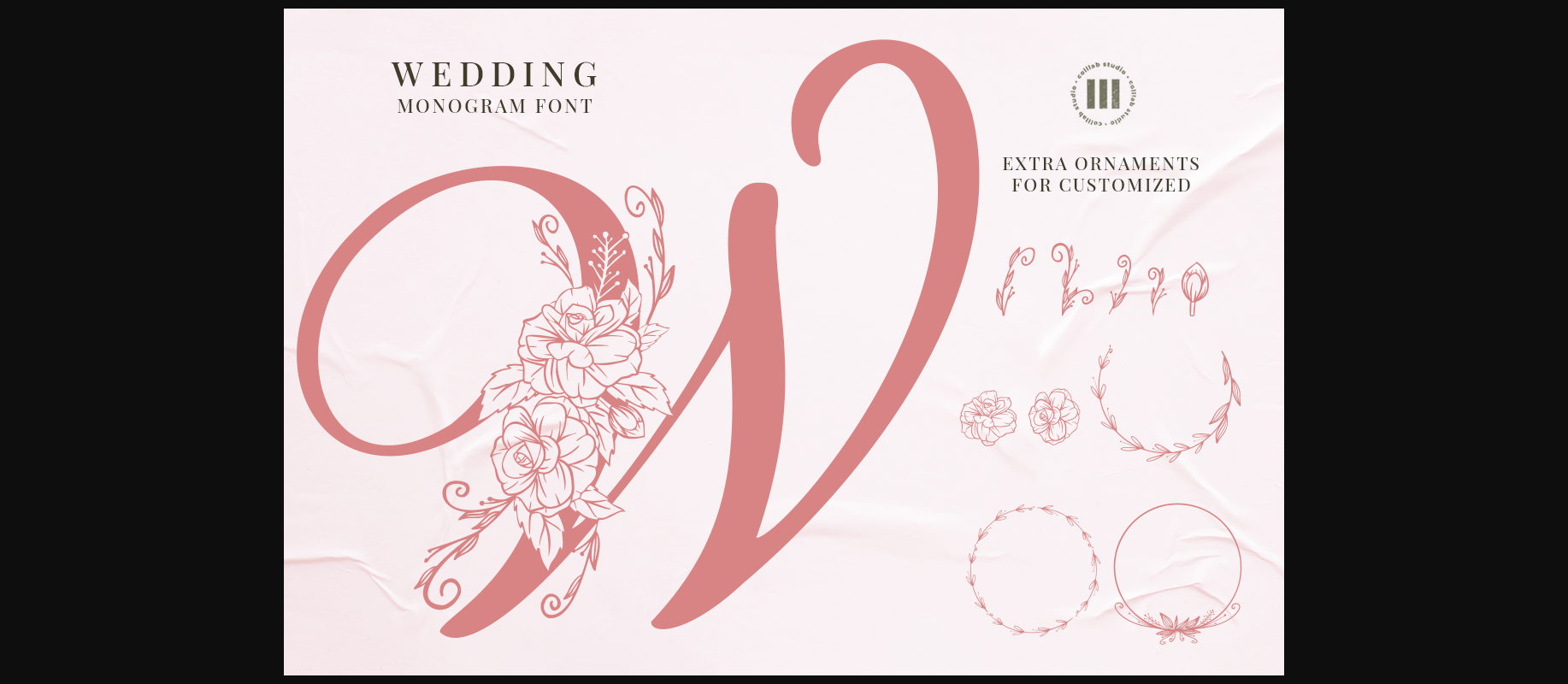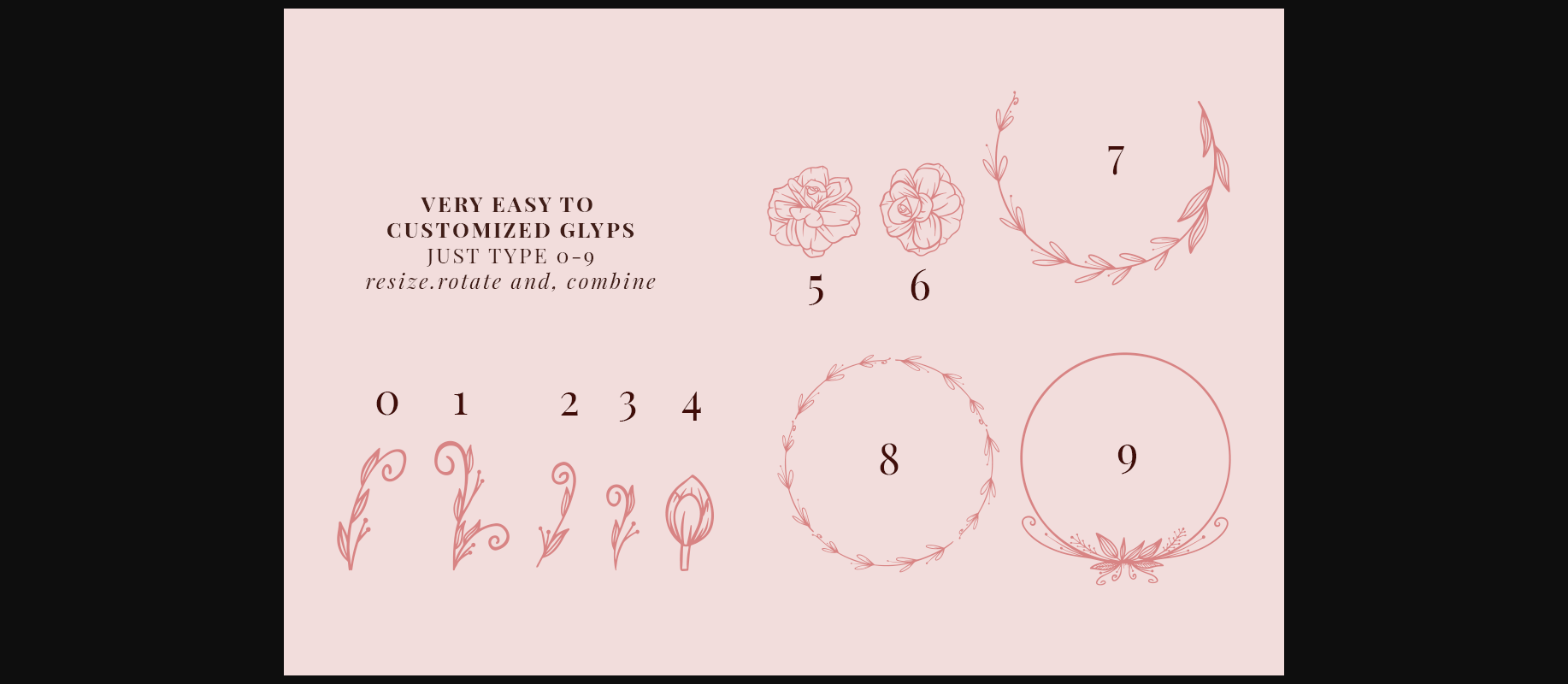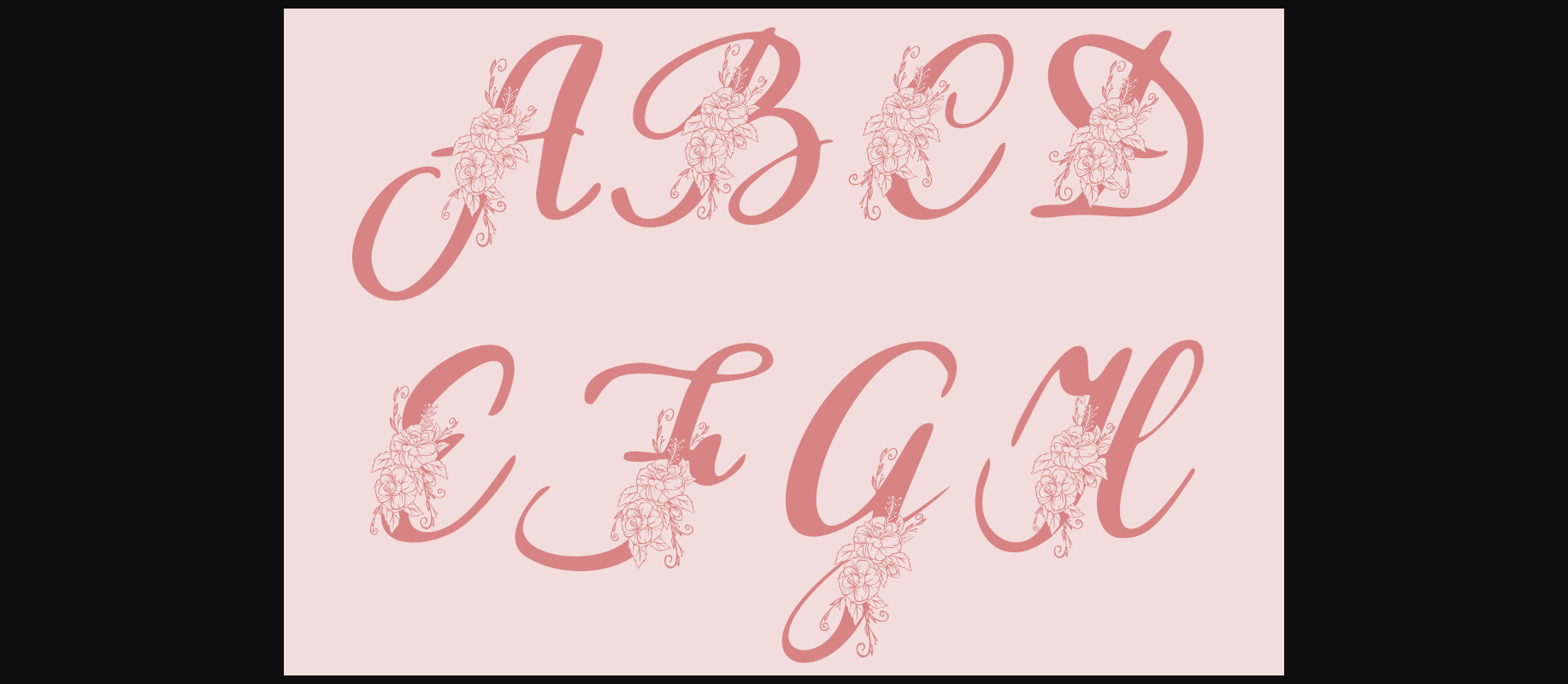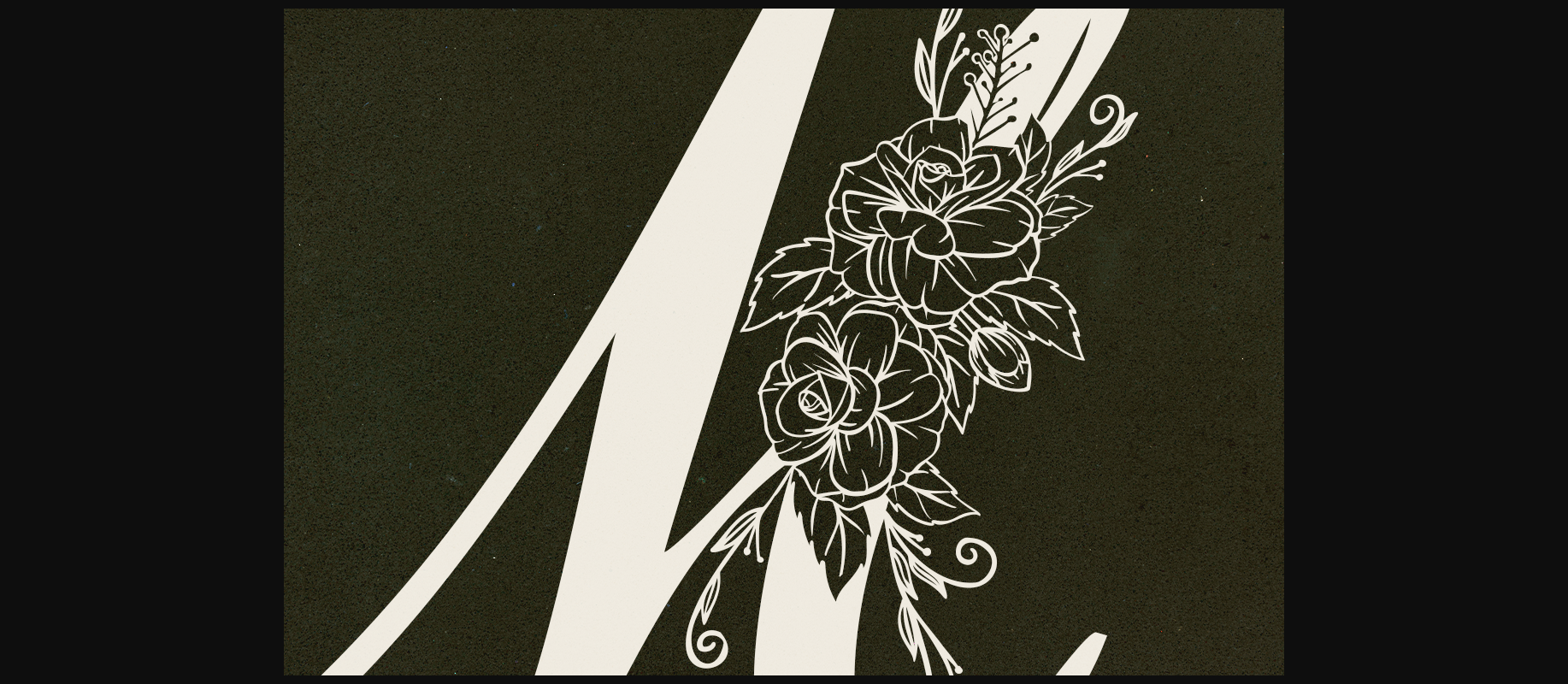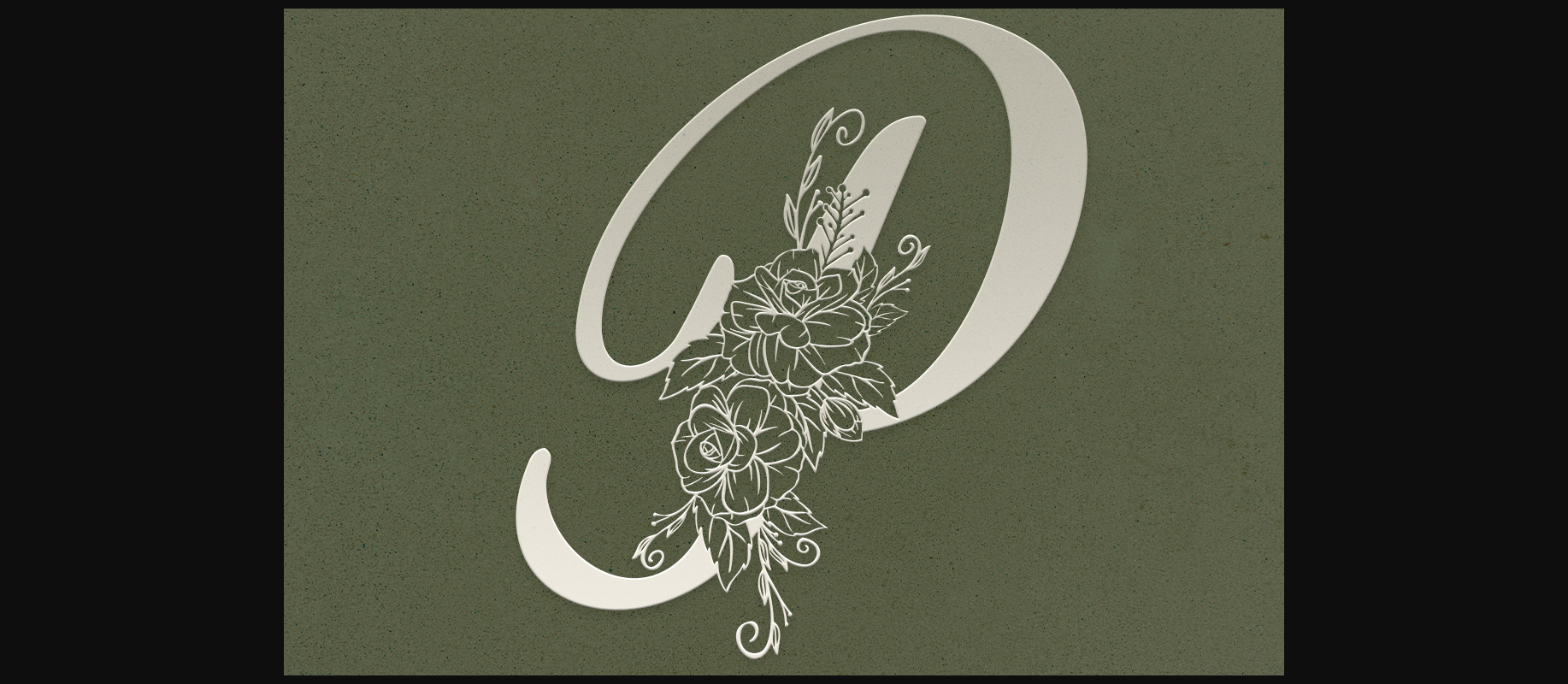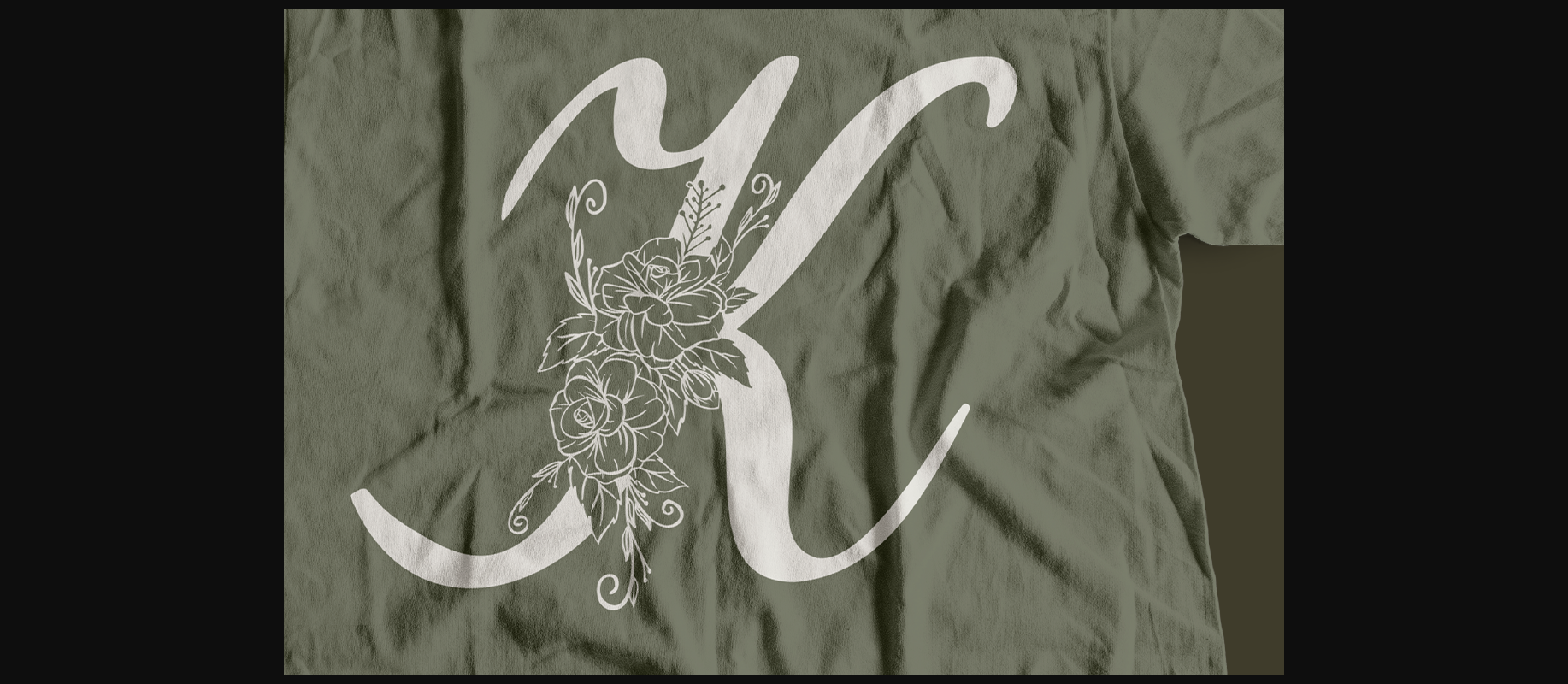
Wedding Monogram Font
About Wedding Monogram Font
Wedding Monogram is an incredibly beautiful and festive decorative font. It looks beautiful on a variety of designs requiring a personalized style, such as wedding invitations, thank you cards, weddings, greeting cards, logos and so on.